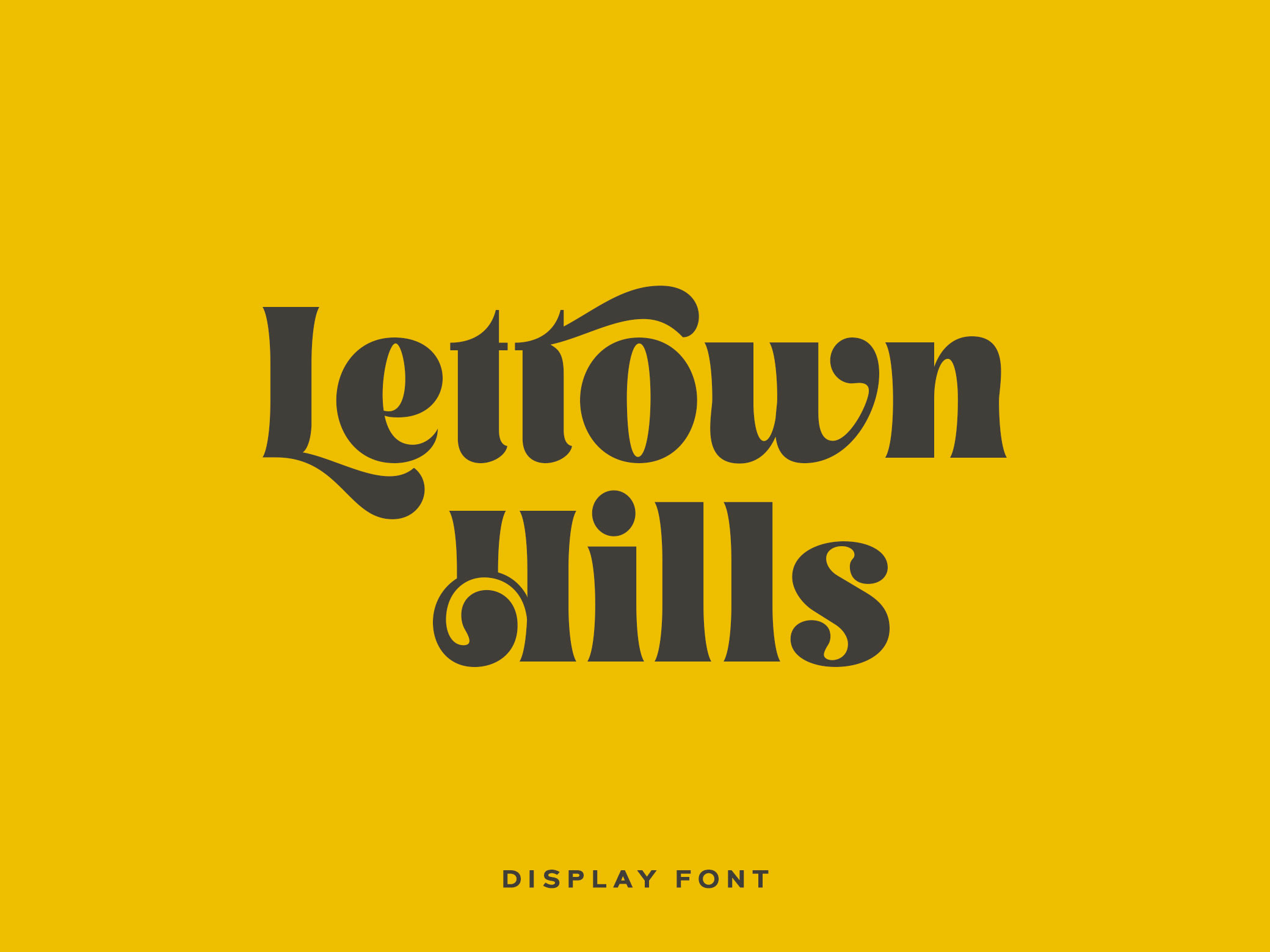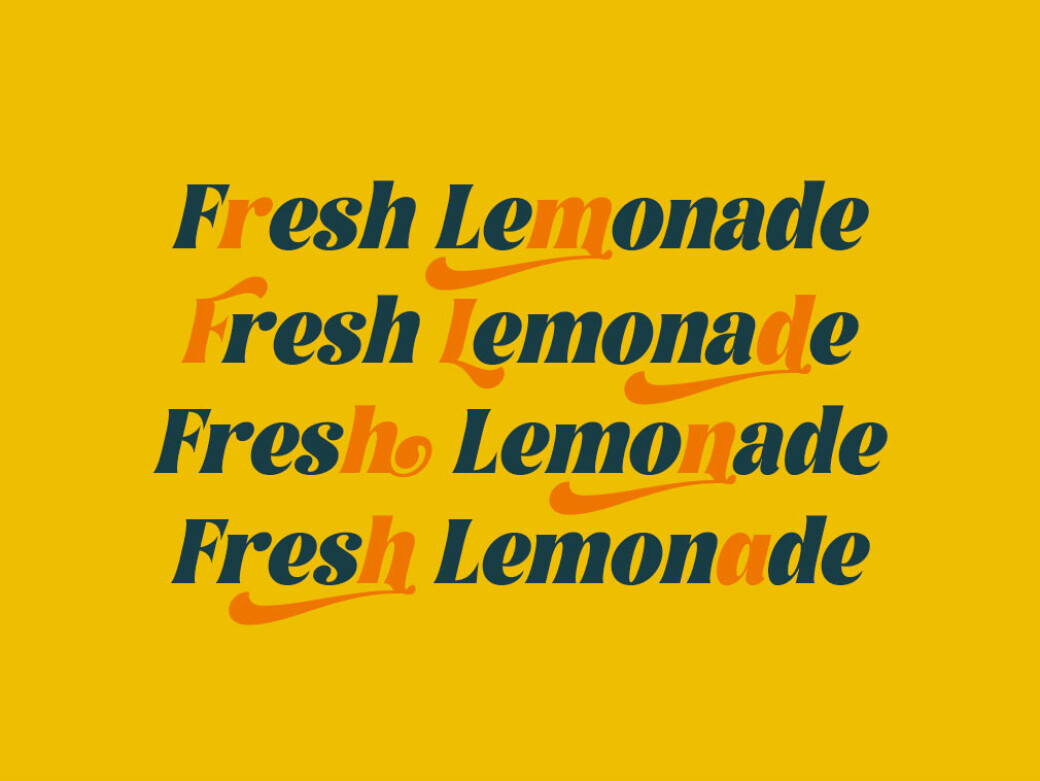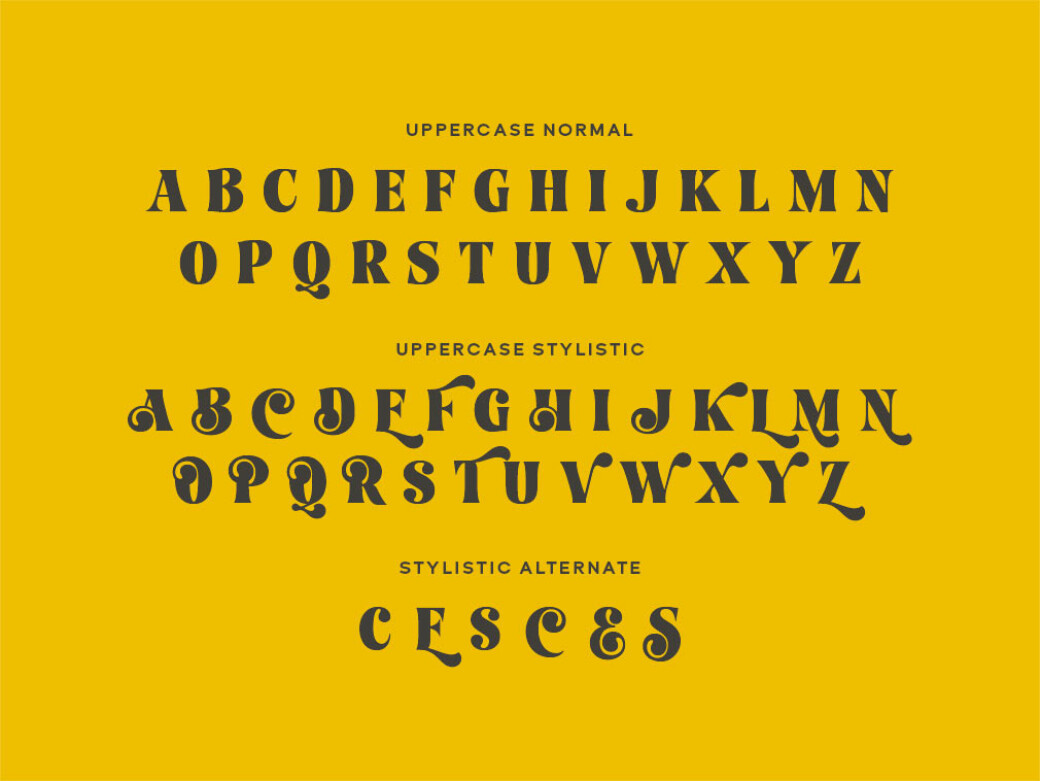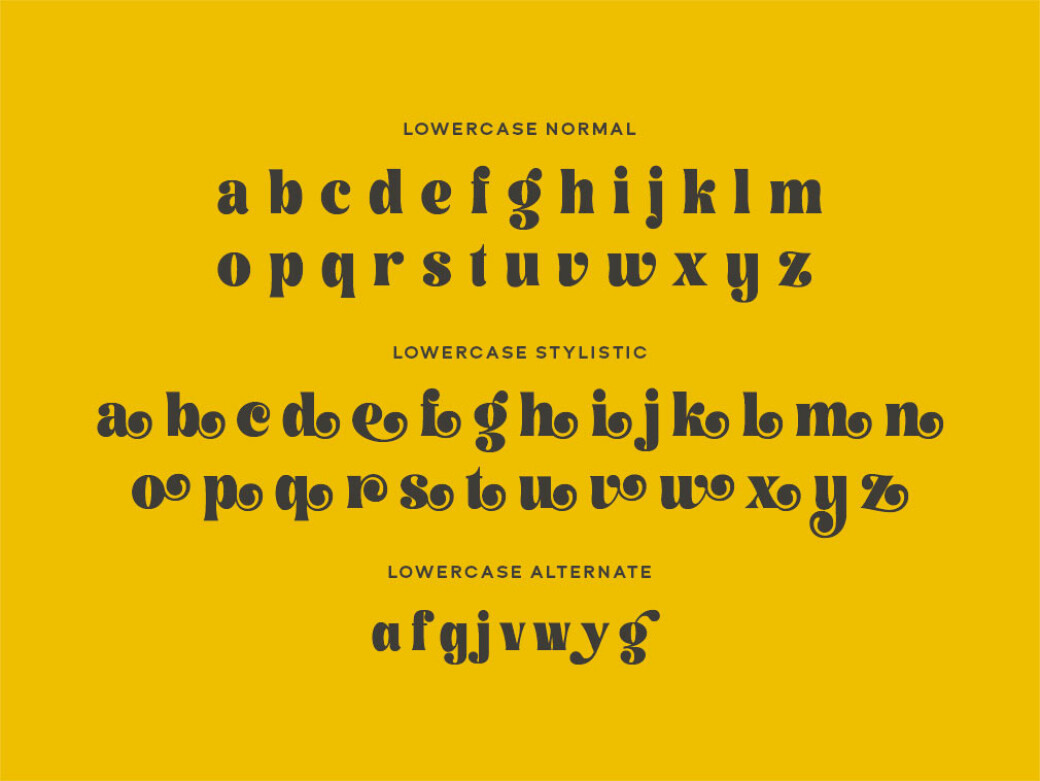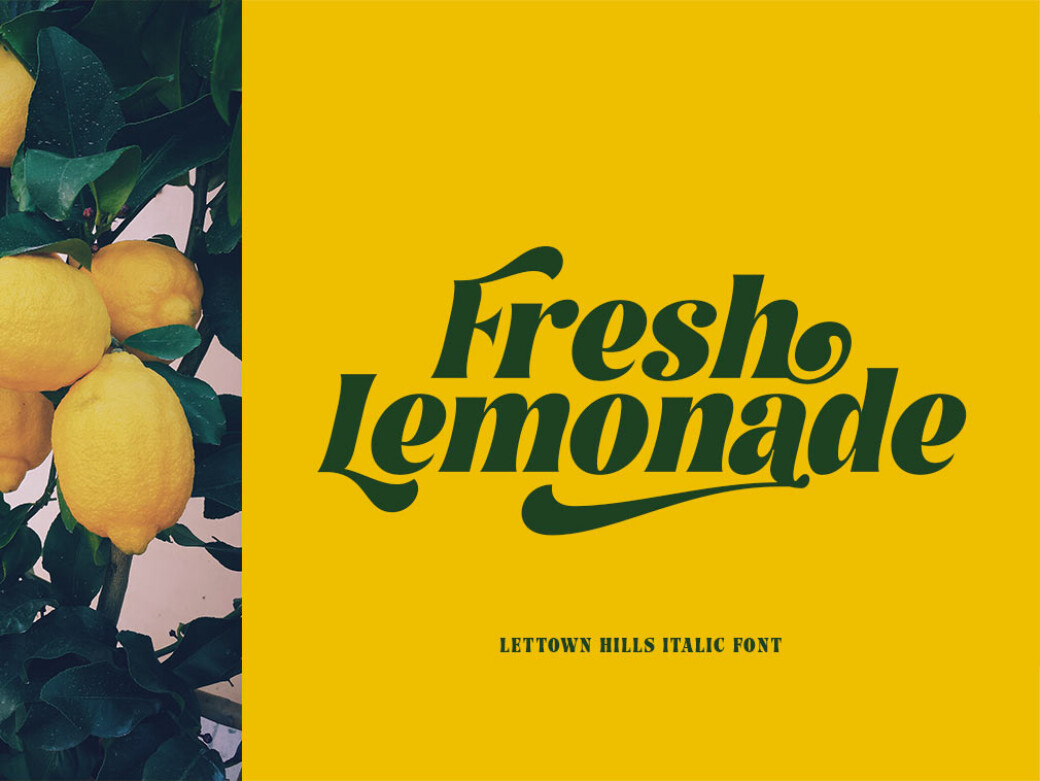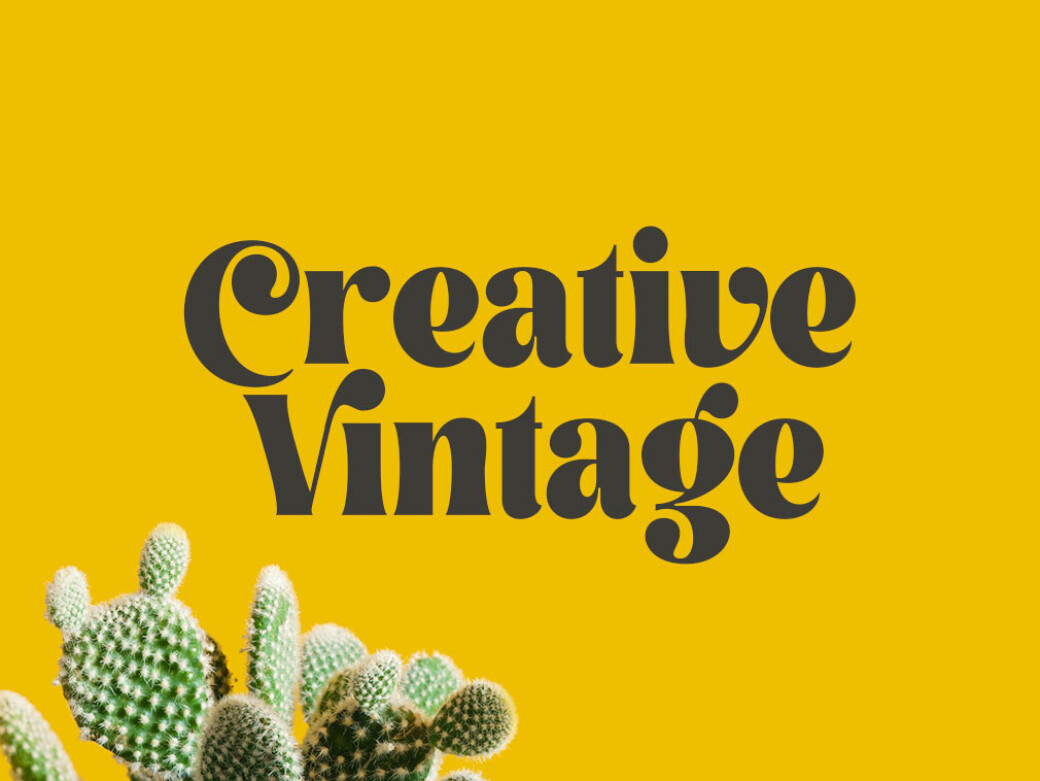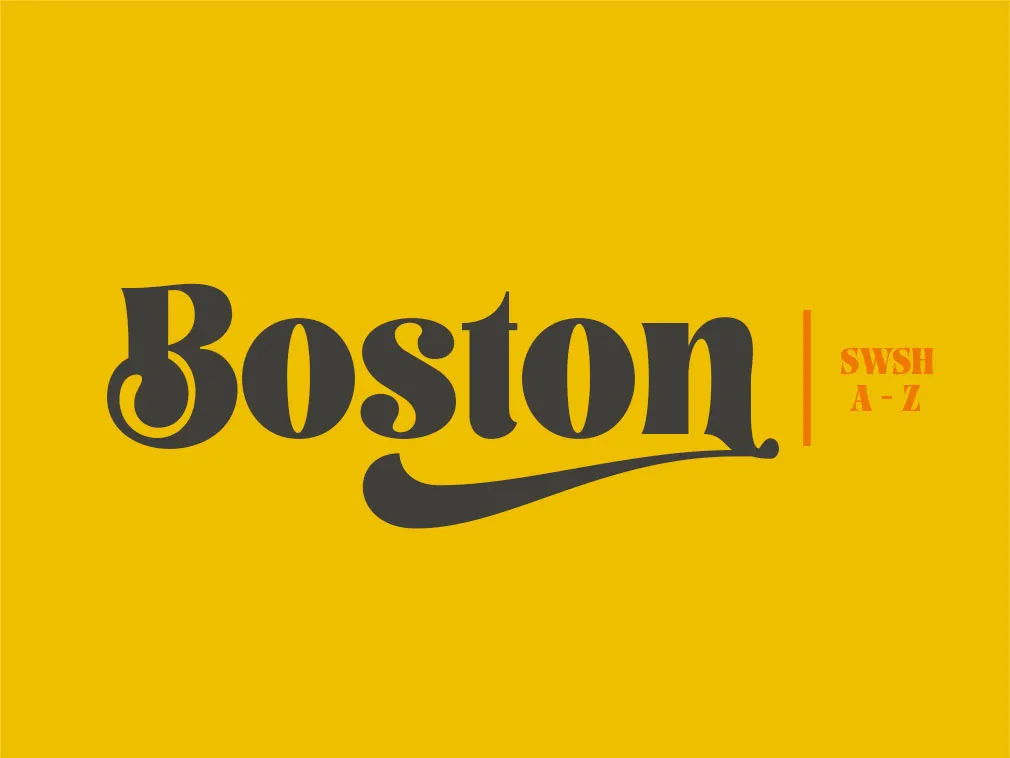
Lettown Hills Display Font
Let the hippie heritage, brought to you in the sunbeams of this funky display font, fill the missing part of the project that is totally going to be wonderful and please the eye of the beholder!Lettown Hills is inspired by urban or freestyle artworks. With casual or marker style and a lot of stylistic alternates, you can create realistic headers. It’s a font that can be used with vintage, simple, and modern styles. Comes also with special swashes. It works beautifully for personal branding, advertising, or creative headers. Looks good with retro style typography or branding. It is very suitable for logos, posters, t-shirts, and more.